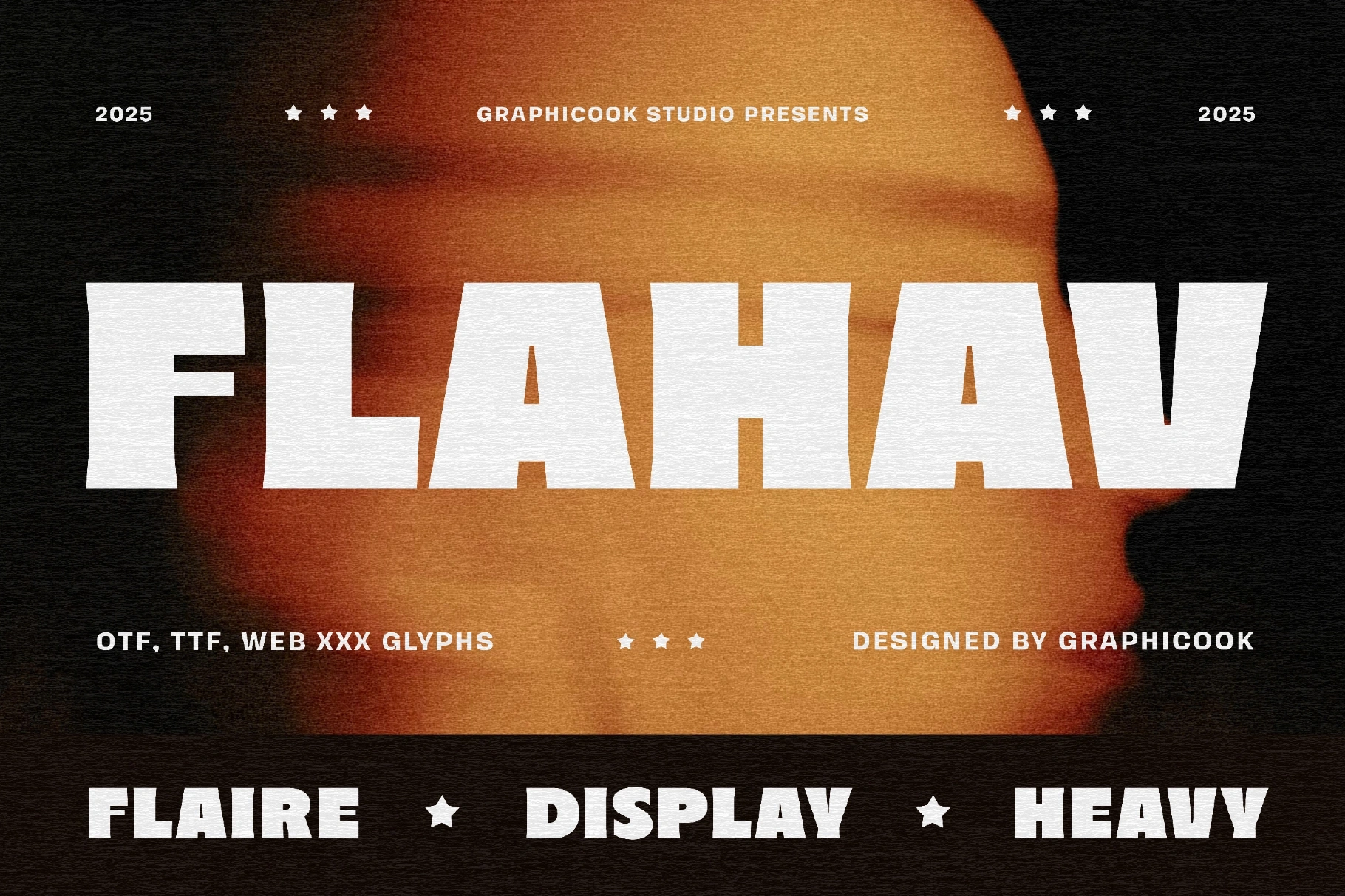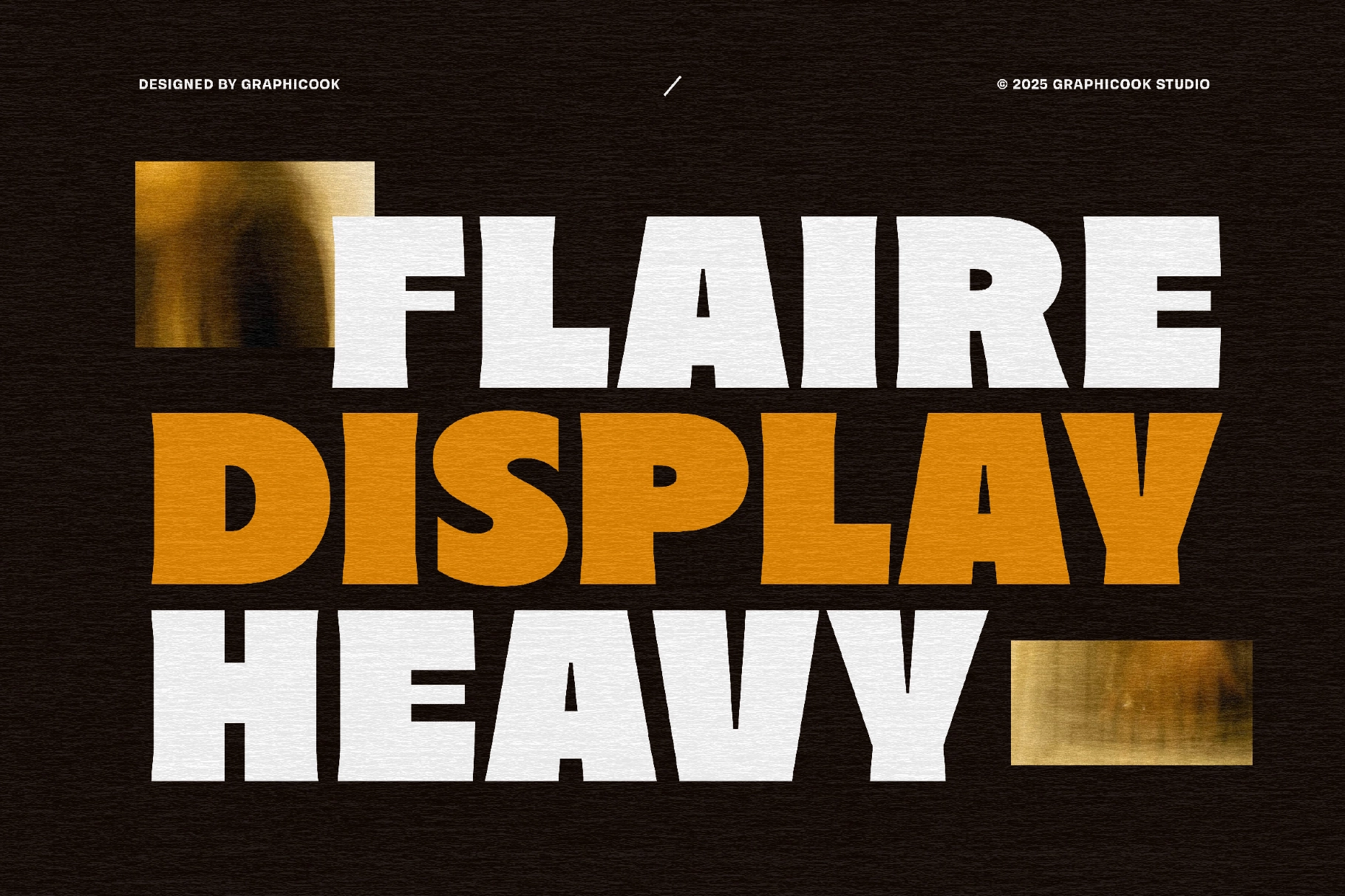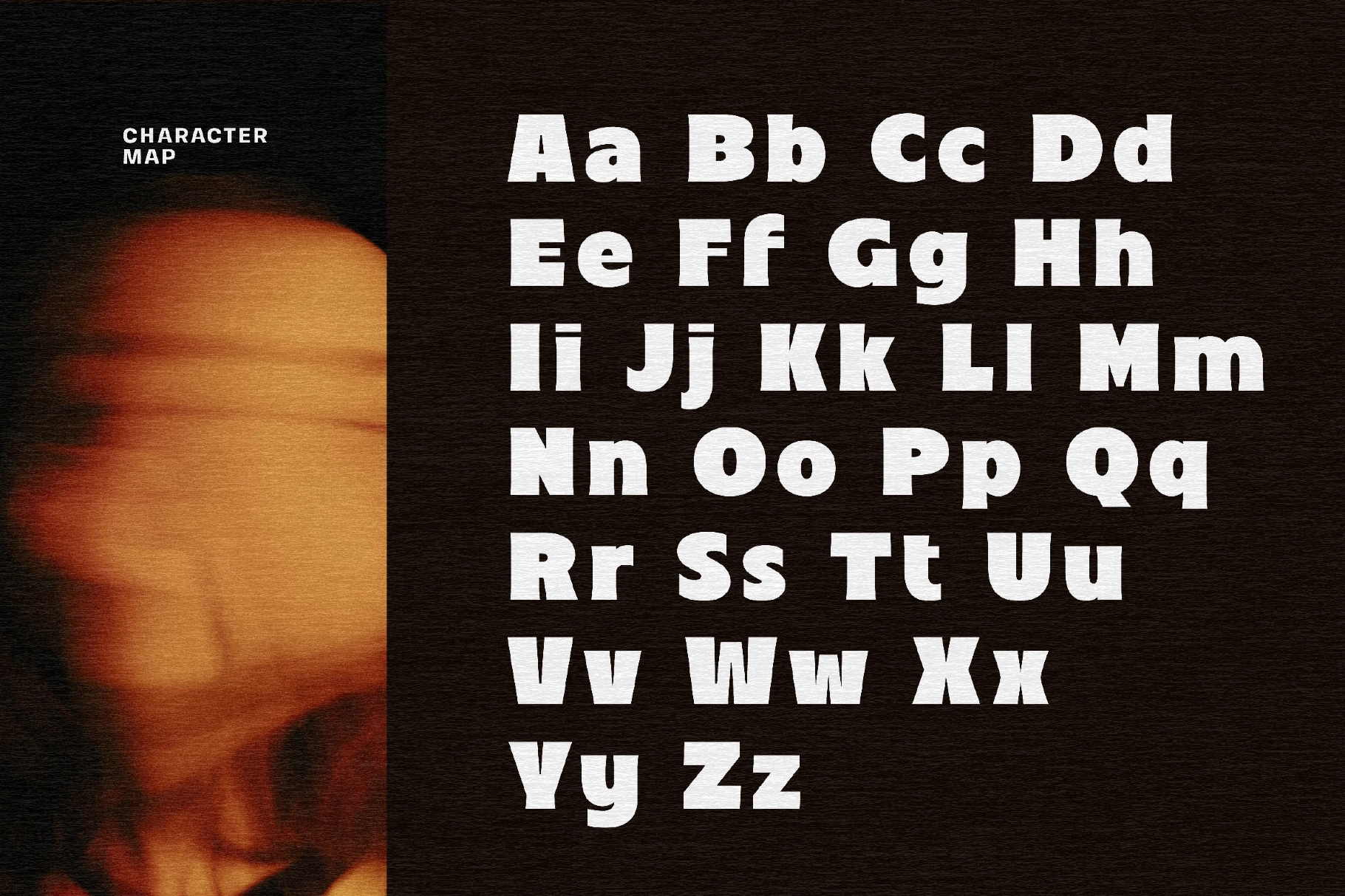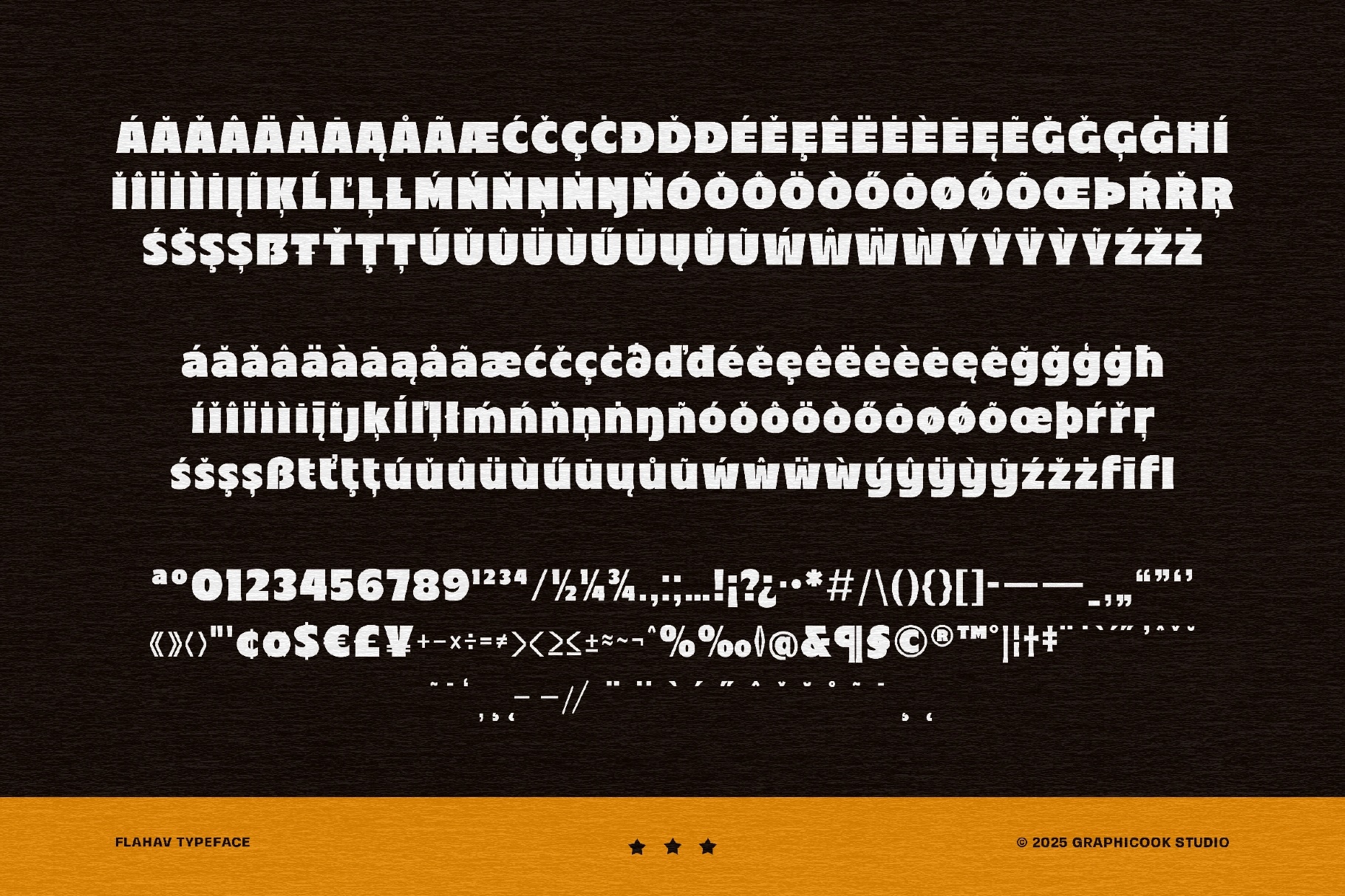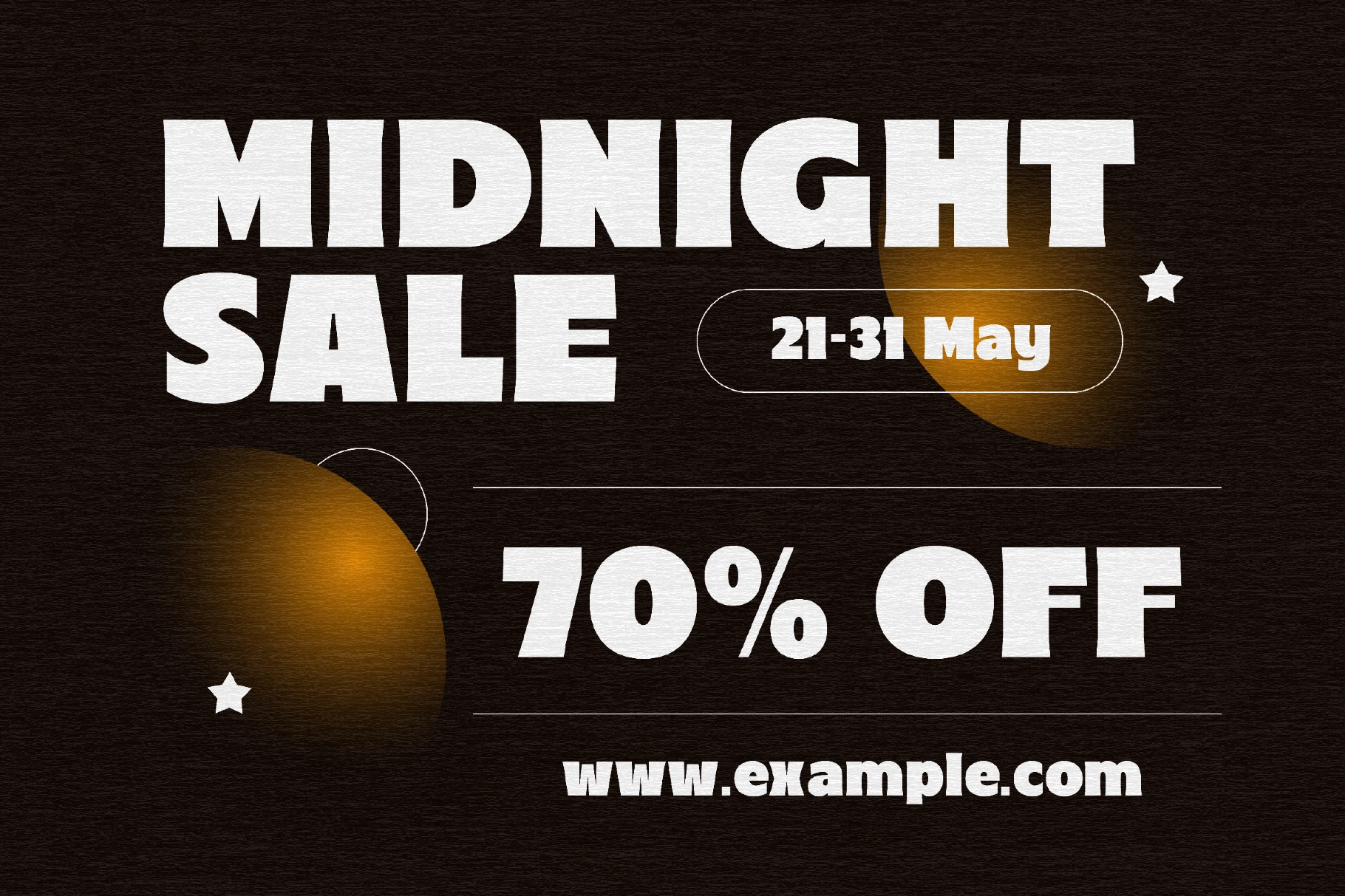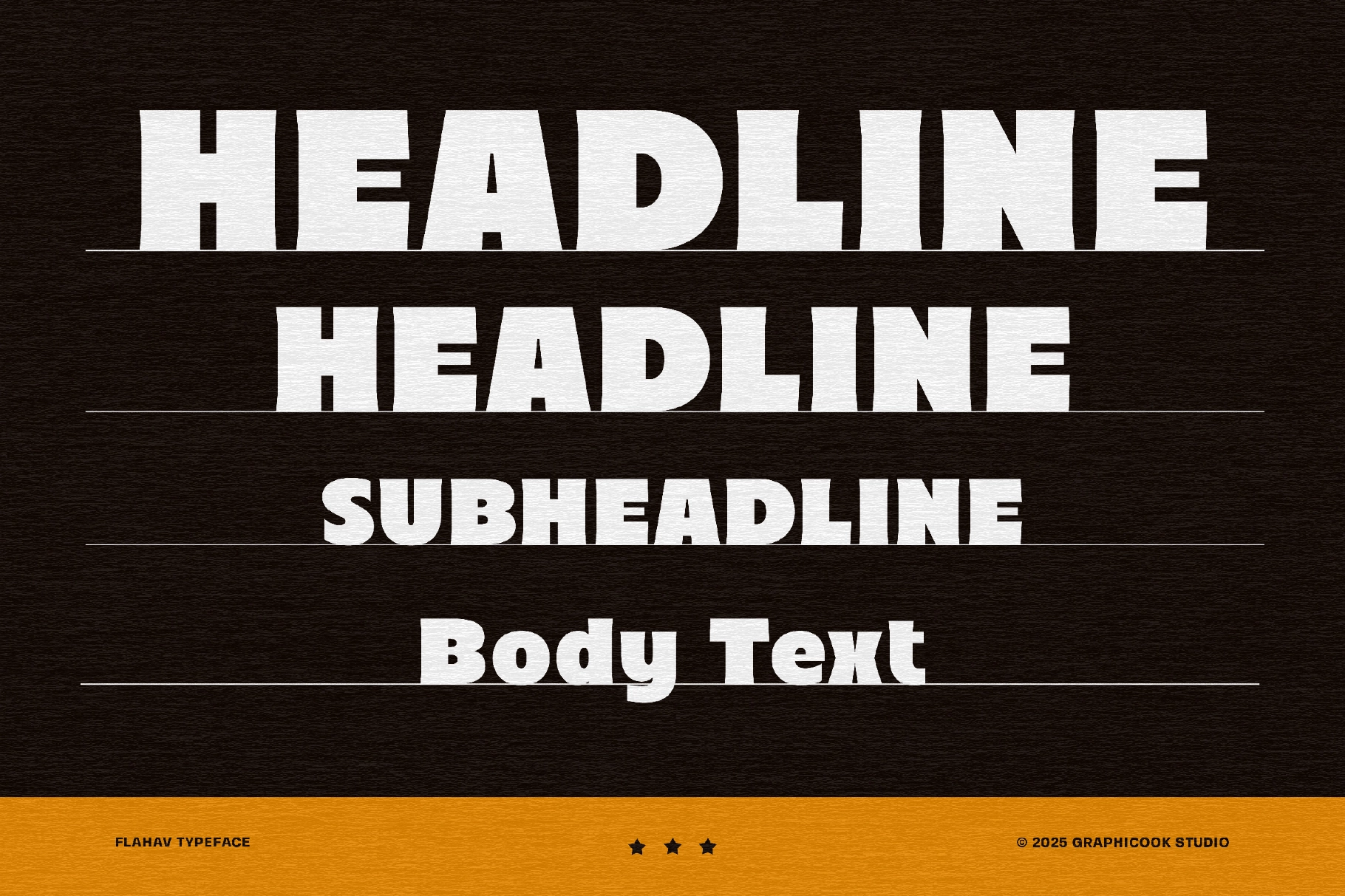
Flahav Font
Flahav
Flahav is a font with a unique and eye-catching character, designed in a modern and experimental style. It's perfect for designs that aim to be bold, striking, and full of personality.